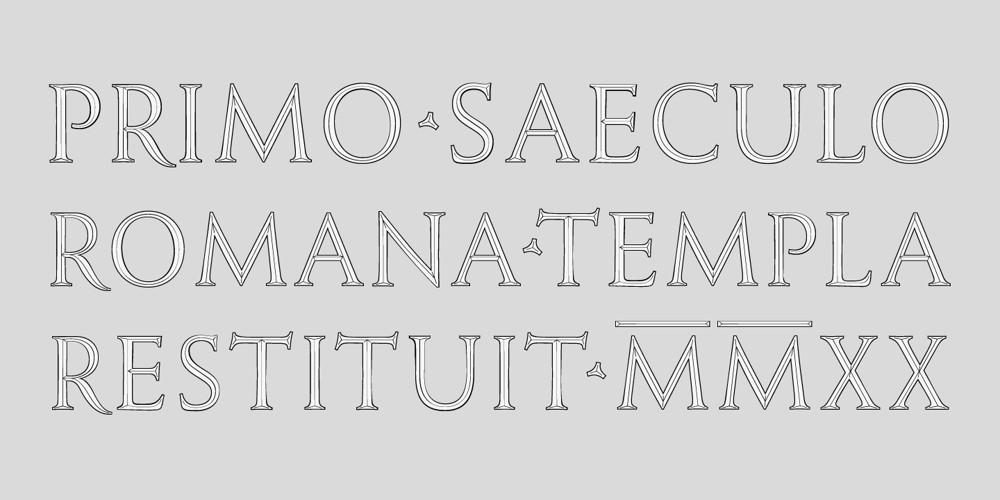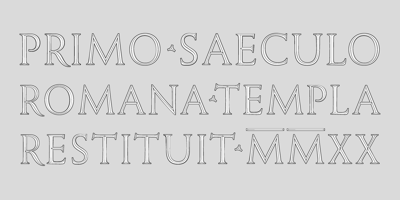
Monkton Incised
Monkton Incised font
Monkton Incised Font Family was designed by Adrian Williams and published by Club Type. Monkton Incised contains 3 styles and family package options. The inspiration for this typeface family came from my childhood experiences at West Monkton, amidst an historic part of the South West of England. Studies of the original incised capitals of the Trajan column in Rome were analysed and polished for this modern version. The lower case letterforms and numerals were then created in sympathy, taking their proportions from the incised letters of local gravestones. Its name honours not only the area where the original alphabet was conceived and drawn, but also the people responsible for fostering my initial interest in letters.These stylized incised typefaces give a depth to the letterforms that can be exploited in your typography – evoking the carved monumental inscriptions of the Roman era.